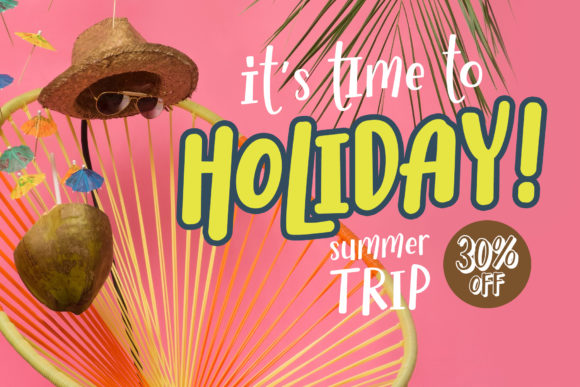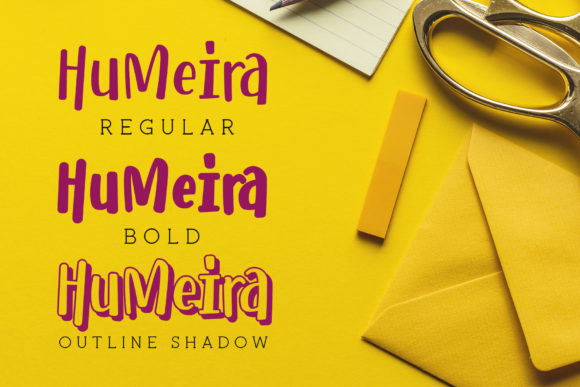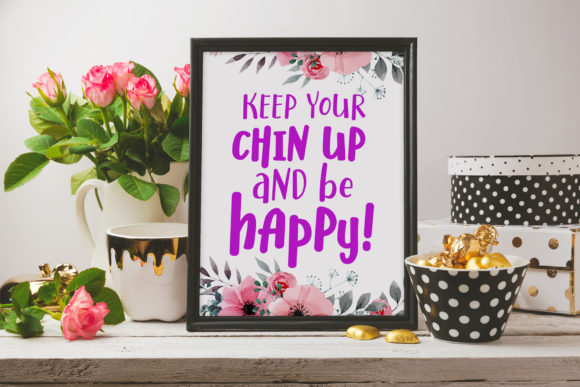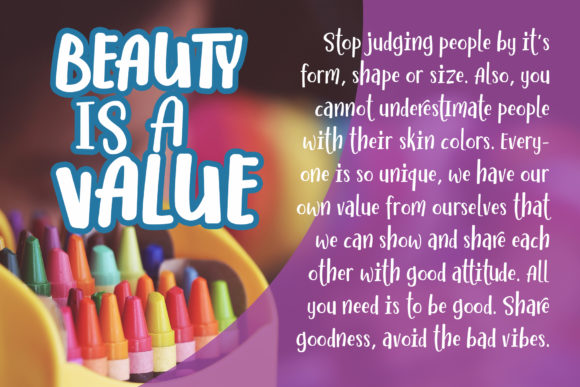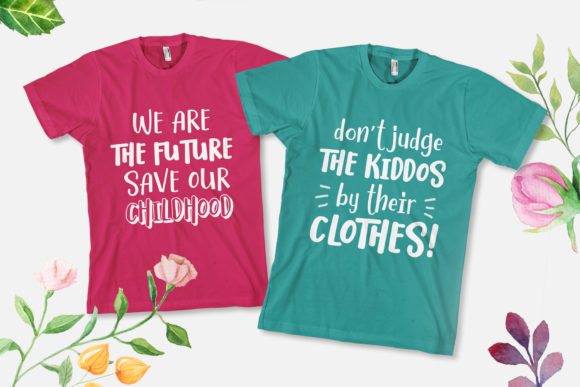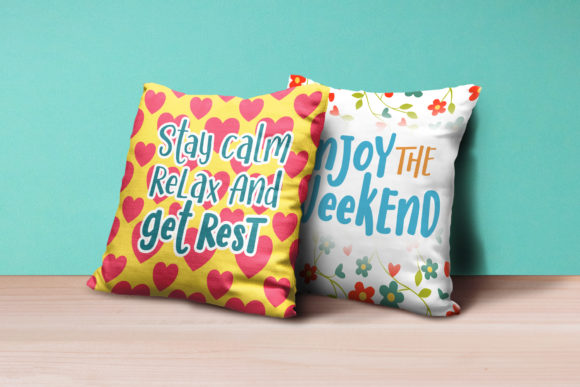
Introduction to Humeira Font
Humeira is inspired by doodles and handwriting, making it an authentic and dynamic script.
Humeira is inspired by doodles and handwriting, making it an authentic and dynamic script!
Key Features of Humeira Font